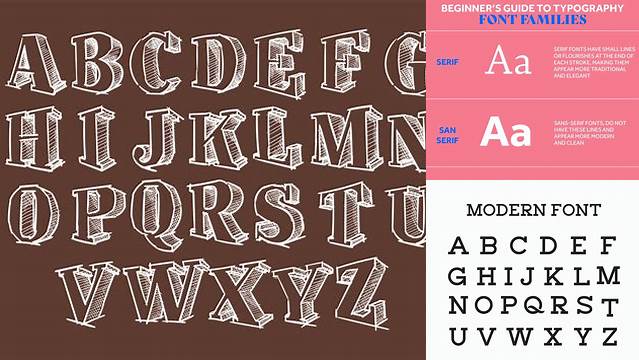
Free Alphabet Fonts: Styles & Where To Find Them
Hey guys! Are you on the hunt for free alphabet font styles to jazz up your projects? You've landed in the right place! Typography is a game-changer when it comes to design, and finding the perfect font can make or break your project. Whether you're designing a logo, crafting a website, or putting together a presentation, the right font can speak volumes. In this guide, we'll dive deep into the world of free alphabet fonts, exploring various styles, where to find them, and how to use them effectively. Let's get started and unleash your creative potential with amazing typography!
Why Font Choice Matters
Let's get real for a moment: font choice is super important! Think of fonts as the voice of your message. A playful, bubbly font might be perfect for a children's book, but it would look totally out of place on a serious legal document, right? The right font enhances readability, grabs attention, and sets the tone. Imagine using a sleek, modern sans-serif font for a tech startup versus a classic, elegant serif font for a high-end fashion brand. The vibes are completely different, aren't they? Font choice is about so much more than just aesthetics; it’s about conveying the right message and connecting with your audience on an emotional level. A well-chosen font can build trust, evoke feelings, and even influence purchasing decisions. This is why understanding the nuances of different font styles and how they resonate with your audience is crucial. So, before you slap on just any font, take a moment to consider what message you're really trying to send.
Different Font Styles and Their Uses
Okay, let's break down the alphabet soup! We've got a whole bunch of different font styles, each with its own personality and best-use cases. First up, we have Serif fonts. Think Times New Roman or Georgia – these fonts have those little feet or strokes at the end of the letters. They’re classic, trustworthy, and often used for body text in books and newspapers because they're easy on the eyes for long reads. Then there are Sans-Serif fonts like Arial or Helvetica. These are the clean, modern fonts without the extra strokes. They’re perfect for websites, logos, and headings where you want a crisp, contemporary look. Script fonts are where things get fancy! These fonts mimic handwriting and can add a touch of elegance or whimsy to invitations, quotes, or branding. But be careful – they can be tricky to read in large blocks of text. Display fonts are the wild cards of the font world. They’re designed to grab attention and come in all sorts of styles, from bold and blocky to quirky and unique. Use them sparingly for headlines or short bursts of text where you want to make a statement. Lastly, Monospace fonts give each character the same width, think Courier New. They’re often used in coding and technical documents for their clarity and uniformity. Each font style brings a unique flavor to your project, and knowing when and where to use them is key to great design.
Where to Find Free Alphabet Fonts
Alright, let's talk treasure hunting! Finding amazing free alphabet fonts doesn't have to feel like searching for a needle in a haystack. There are tons of awesome resources out there, and I'm going to spill the beans on some of the best. Google Fonts is a goldmine! It's a free library with hundreds of fonts that you can use on your website or in your projects. Plus, they're super easy to embed and use. DaFont is another fantastic site, packed with fonts of all styles, from elegant scripts to funky display fonts. Just be sure to check the license, as some fonts are free for personal use only. Font Squirrel is another gem, offering high-quality, commercial-use-free fonts. This is a great place to find fonts that are a cut above the rest. Creative Market often has free font packs available as part of their weekly freebies. Keep an eye on their site to snag some premium fonts without spending a dime. MyFonts also has a selection of free fonts, and they often run promotions where you can get fonts for free or at a discounted price. And don't forget about individual designers and foundries! Many offer free fonts on their websites as a way to showcase their work. Exploring these resources will open you up to a world of typographical possibilities. Just remember to always double-check the licensing agreements to make sure you're using the fonts legally. Happy font hunting!
Top Websites for Free Fonts
So, you're itching to explore some top-notch websites for free fonts, huh? Let's get right to it! First up, we have Google Fonts. It's like the superhero of free font libraries. Google Fonts boasts an extensive collection of high-quality fonts that are not only free but also incredibly easy to use on websites and in design projects. The best part? They're open source, meaning you can use them for commercial purposes without any worries. Next on our list is DaFont. Think of DaFont as the treasure chest of the font world. It's overflowing with fonts of every style imaginable, from whimsical scripts to bold display fonts. However, a word of caution: always double-check the license, as some fonts are free for personal use only. Font Squirrel is another fantastic option. This site prides itself on offering fonts that are 100% free for commercial use. You'll find a curated selection of fonts that are both stylish and legally safe to use in your projects. Creative Market is a marketplace where designers sell their creations, but they also offer free goods every week, and guess what? Sometimes those freebies include awesome fonts! Keep an eye on their weekly free offerings to snag some premium fonts without spending a penny. MyFonts, known for its vast collection of commercial fonts, also has a section dedicated to free fonts. Plus, they frequently run promotions where you can snag fonts at discounted prices or even for free. Exploring these websites will equip you with a fantastic arsenal of typographical tools. Just remember, always read the fine print regarding licensing to ensure you're using the fonts in compliance with their terms. Happy browsing!
How to Choose the Right Font for Your Project
Choosing the right font can feel like picking the perfect outfit – it needs to fit the occasion and reflect your style. So, how do you nail it for your project? First, think about your brand. What kind of message do you want to send? A playful, quirky brand might go for a fun display font, while a serious, professional brand might stick with a classic serif. Consider your audience too. What fonts will resonate with them? If you're targeting a younger crowd, you might opt for a modern sans-serif, while an older audience might appreciate a more traditional serif font. Readability is key! No matter how beautiful a font is, if it's hard to read, it's not the right choice. Make sure your font is legible at various sizes, both on screen and in print. Think about the mood and tone of your project. A romantic script font might be perfect for a wedding invitation, but it would feel out of place in a tech manual. Consider the context. Where will your font be used? A website might require a different font than a printed brochure. Don't be afraid to experiment! Try out different fonts and see what looks best. Mix and match fonts, but do it wisely. A good rule of thumb is to pair a serif font with a sans-serif font for contrast. And finally, always check the licensing. Make sure you have the right to use the font for your project, especially if it's for commercial purposes. Choosing the right font is a blend of art and science, but with these tips, you'll be well on your way to making the perfect choice.
Utilizing Free Fonts in Design Software
Tips for Effective Font Pairing
Font pairing – it's like matchmaking for typography! When you nail it, your designs sing. But if you mess it up, it's like nails on a chalkboard. So, let's dive into some tips for effective font pairing. The golden rule? Contrast is key! Pair a serif font with a sans-serif font to create visual interest. Think of it as the classic combo: a strong, structured serif for headlines and a clean, simple sans-serif for body text. But don't go overboard with the contrast. Choose fonts that complement each other in terms of weight and style. A super bold headline font paired with a delicate body font might look unbalanced. Limit yourself to two or three fonts per project. Too many fonts can create visual chaos and make your design look cluttered. Consider the mood and tone of your project. A playful project might benefit from a script font paired with a sans-serif, while a formal project might call for a classic serif pairing. Think about hierarchy. Use different font sizes and weights to create a visual hierarchy and guide the reader's eye. A large, bold headline font will draw attention, while smaller body text will provide the details. Test your font pairings! What looks good in theory might not always work in practice. Try out your font pairings in different contexts and see how they look. Use online tools and resources. There are tons of websites and apps that can help you find great font pairings. And finally, trust your gut! If a font pairing feels right, it probably is. Effective font pairing is an art, but with these tips, you'll be well on your way to creating harmonious and visually stunning designs.
Avoiding Common Font Mistakes
Okay, let's talk font faux pas! We all make mistakes, but when it comes to typography, some errors are more glaring than others. So, let's dive into how to avoid common font mistakes and keep your designs looking polished. One of the biggest no-nos is using too many fonts. Stick to a maximum of two or three fonts per project. More than that, and your design can start to look cluttered and chaotic. Another common mistake is choosing fonts that are too similar. If your fonts are too alike, they won't create enough contrast, and your design will fall flat. Go for fonts that have distinct personalities but still complement each other. Poor readability is a major pitfall. No matter how beautiful a font is, if it's hard to read, it's not the right choice. Make sure your font is legible at various sizes and in different contexts. Kerning and tracking issues can also ruin a design. Kerning refers to the spacing between individual letters, while tracking is the overall spacing between all the letters in a word or line. Adjust these settings to ensure your text is evenly spaced and easy to read. Ignoring hierarchy is another mistake. Use different font sizes, weights, and styles to create a visual hierarchy and guide the reader's eye. Your headline should be the most prominent element, followed by subheadings and body text. And finally, don't forget about licensing! Make sure you have the right to use the font for your project, especially if it's for commercial purposes. Avoiding these common font mistakes will help you create designs that are both visually appealing and professional.
Conclusion: Unleash Your Creativity with Free Fonts
Alright guys, we've reached the end of our typography journey, and I hope you're feeling inspired and ready to unleash your creativity with free fonts! We've covered a ton of ground, from why font choice matters to where to find amazing free fonts and how to use them effectively. Remember, typography is a powerful tool that can elevate your designs and help you communicate your message with clarity and style. So, don't be afraid to experiment, try new things, and have fun with it! The world of free fonts is vast and exciting, and there are endless possibilities just waiting to be discovered. By understanding the nuances of different font styles, mastering the art of font pairing, and avoiding common font mistakes, you'll be well on your way to creating stunning typography that captivates your audience. So go ahead, dive in, and let your creativity soar with the awesome power of free fonts. Happy designing!